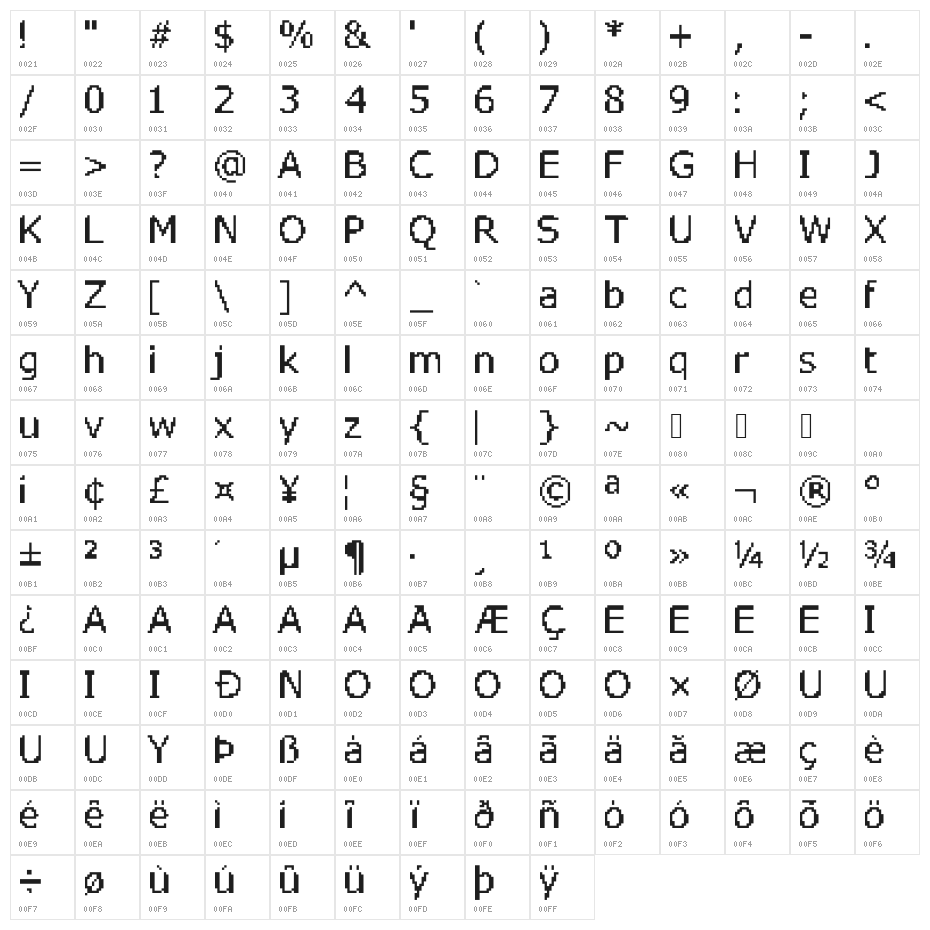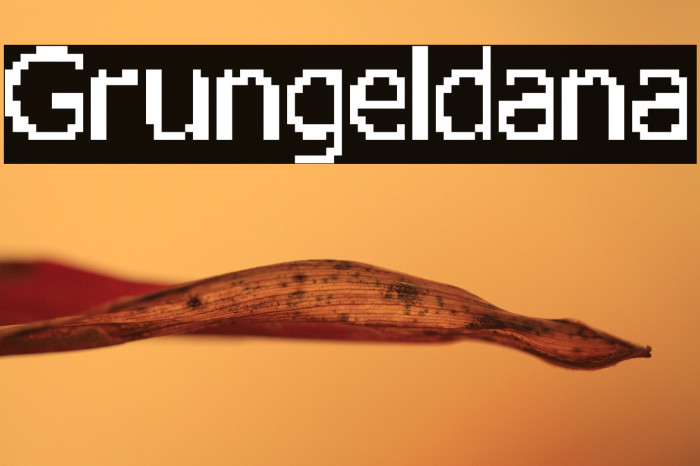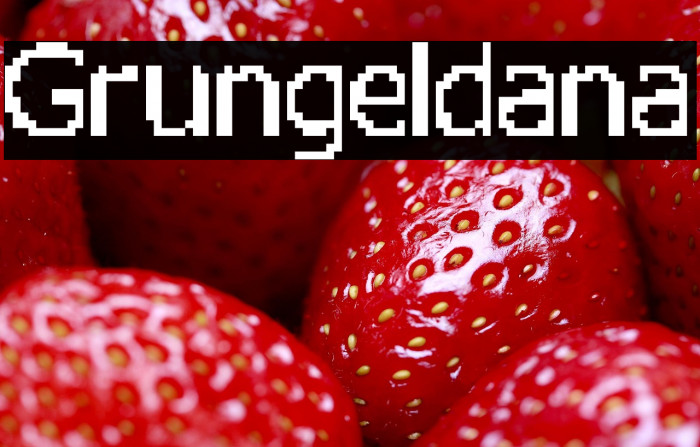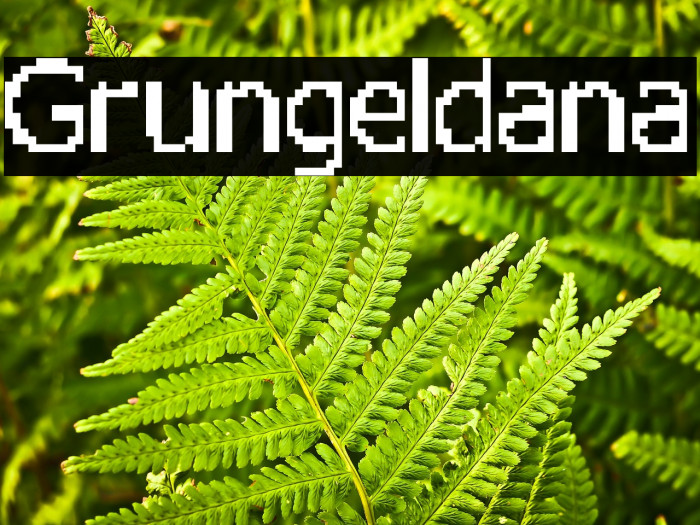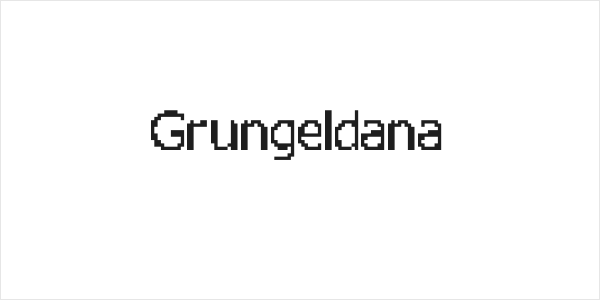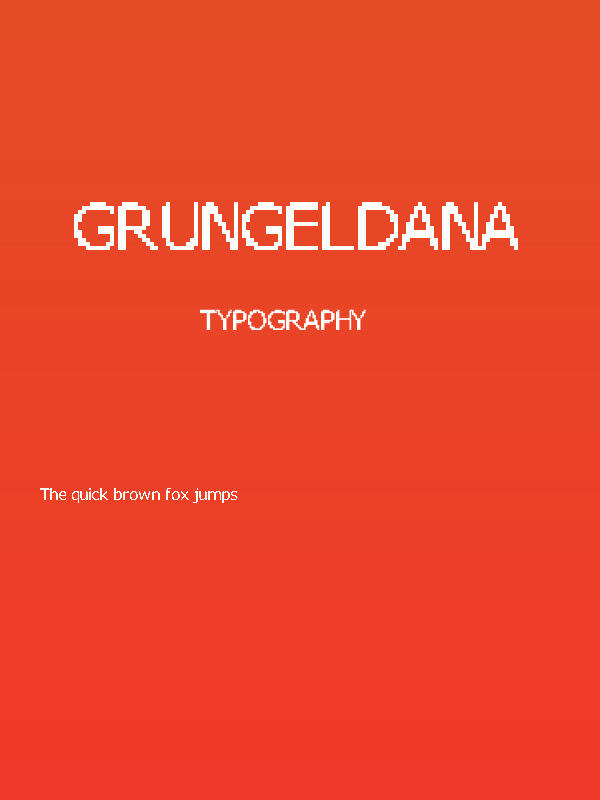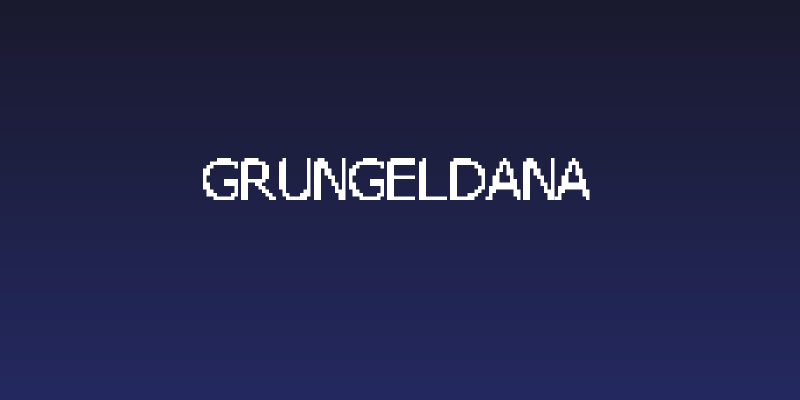
Grungeldana Font
Grungeldana Description
This font features a bold, pixelated style reminiscent of early digital displays and retro video games. The characters are constructed with a blocky, grid-like appearance, giving it a distinctly digital and vintage feel. The uppercase and lowercase letters maintain a consistent height, contributing to a uniform look across the text. Numbers and special characters follow the same pixelated design, ensuring coherence throughout. The font's geometric structure makes it highly legible, even at smaller sizes, while its unique style adds a touch of nostalgia and character.
| Use Case | Logos, Headlines, Posters, Digital Art |
| Proposed Projects | Ideal for retro-themed designs, video game graphics, digital art projects, and any creative work that seeks to evoke a sense of nostalgia. |